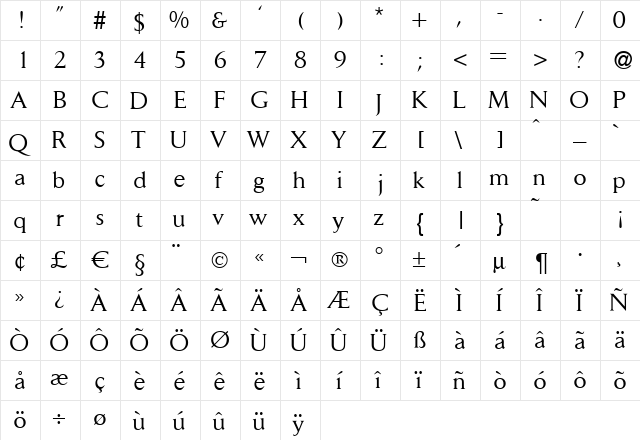
D650-Roman Regular
Design Context for D650-Roman Typeface
D650-Roman takes a measured approach to typography — its balanced proportions and neutral character make it a reliable workhorse for both digital and print work.